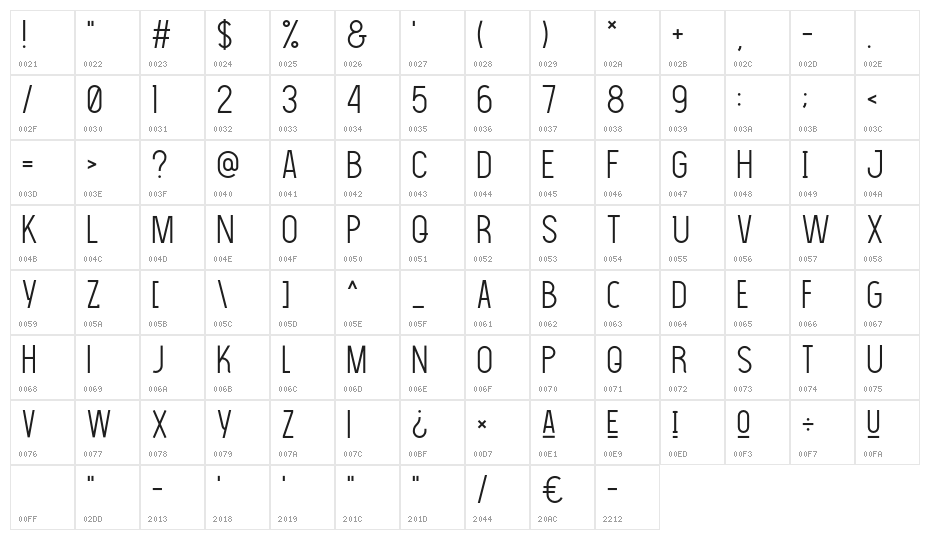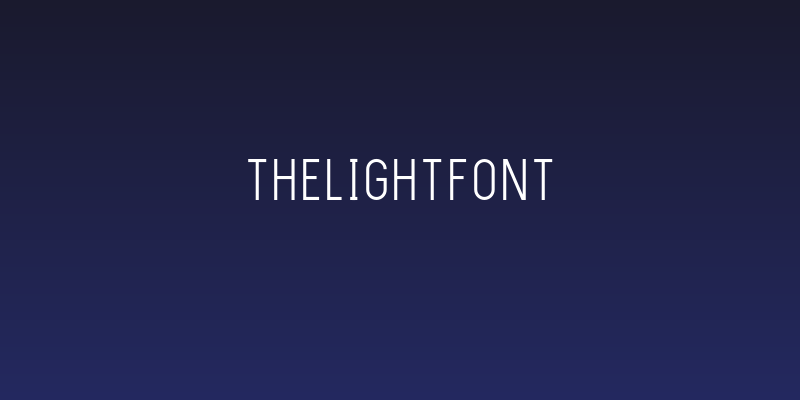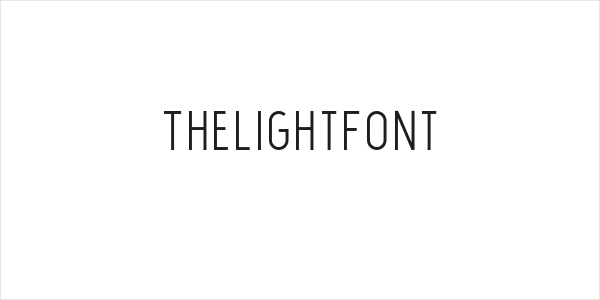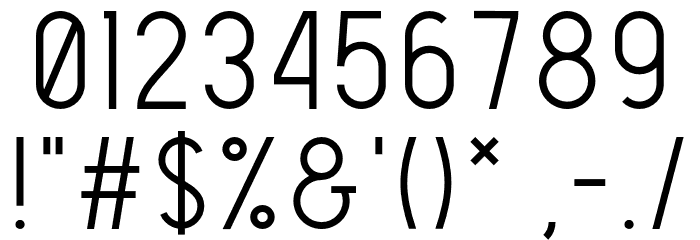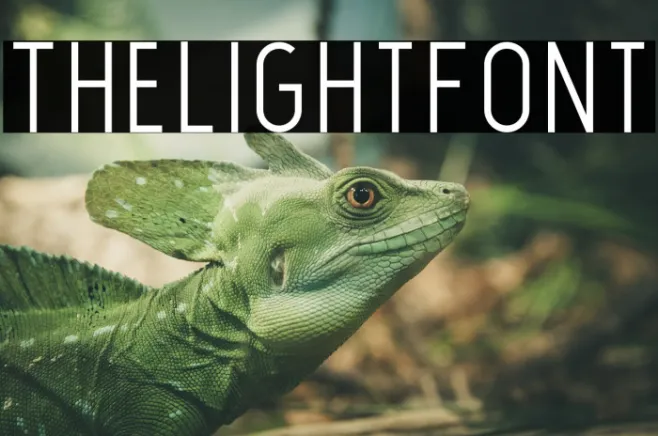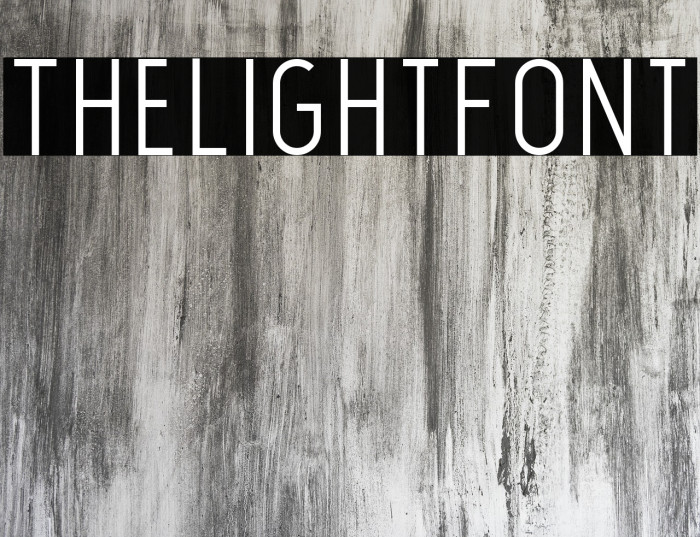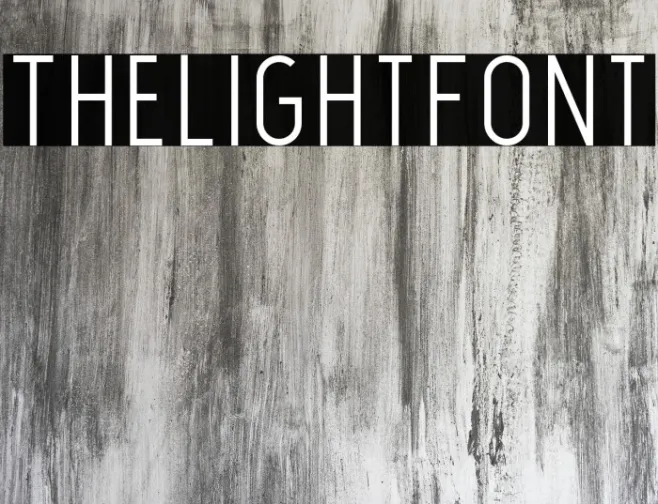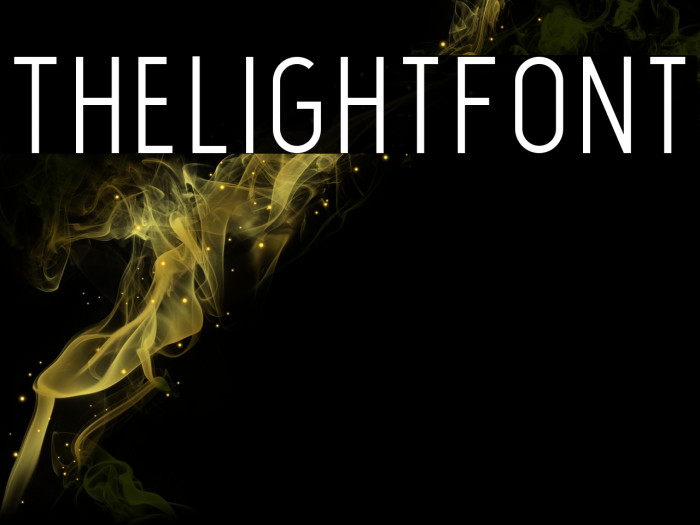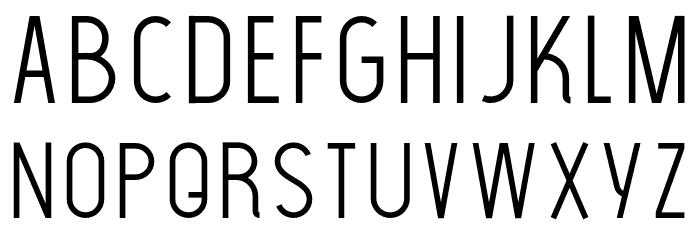
TheLightFont Font
TheLightFont Description
This font features a clean and modern sans-serif style with a geometric structure. The characters are tall and narrow, giving it a sleek and contemporary appearance. The strokes are consistent in weight, providing a uniform look across all characters. The uppercase and lowercase letters maintain a similar width, enhancing readability. The numerals are clear and distinct, making them suitable for various applications. Special characters are well-defined, adding versatility to the font's use. Overall, the font's simplicity and elegance make it ideal for modern design projects.
| Proposed Projects | Ideal for branding, web design, editorial layouts, and minimalist posters. |